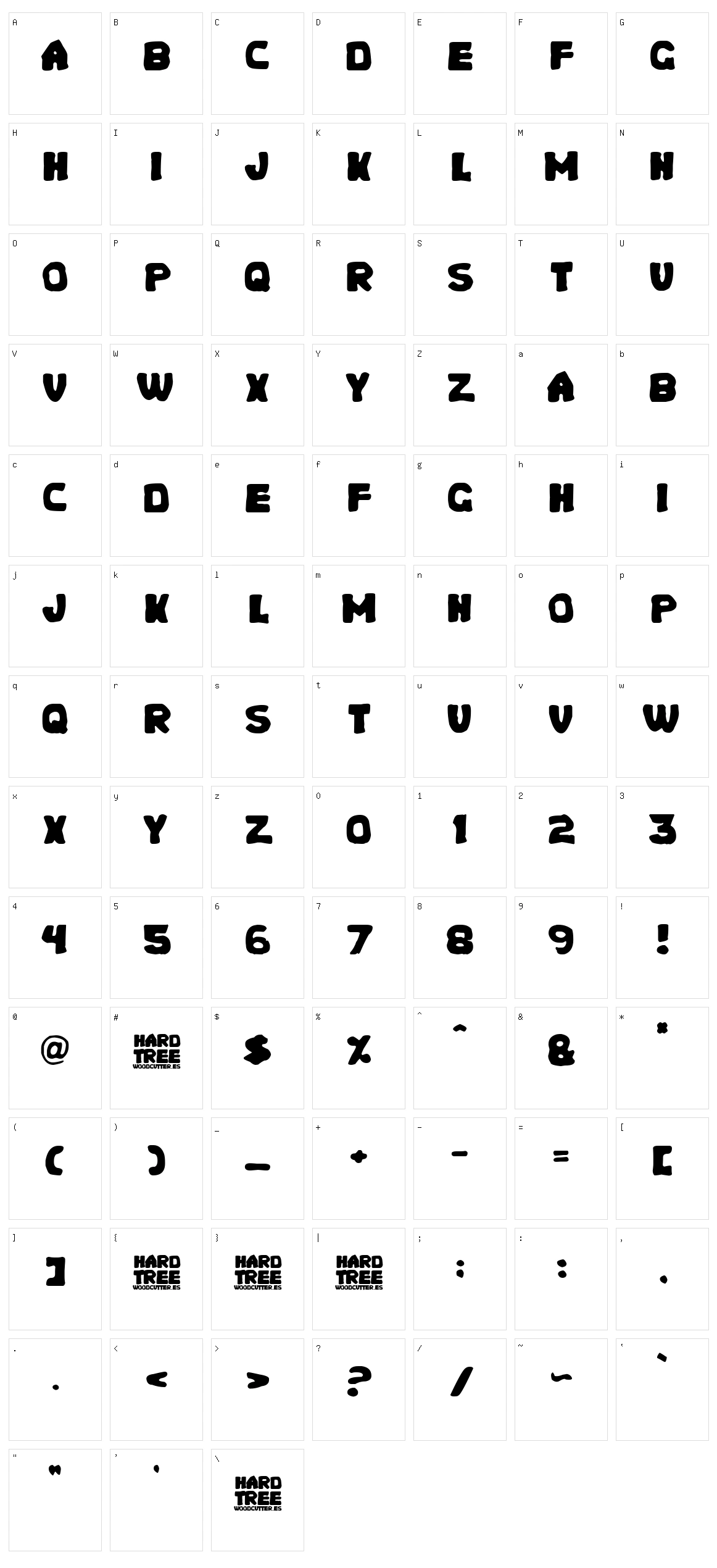
The free font Hard Tree is carefully designed by Woodcutter, showcasing a thoughtful balance of creativity and usability and falls under the Cartoon font style. When you download the ZIP file, it contains only 62.13 KB of font files, making it lightweight and quick to download. Please review the license details below to understand permitted usage and distribution rights. If license information is not available, we recommend using this font for personal projects only or contacting the author directly for commercial usage permissions.